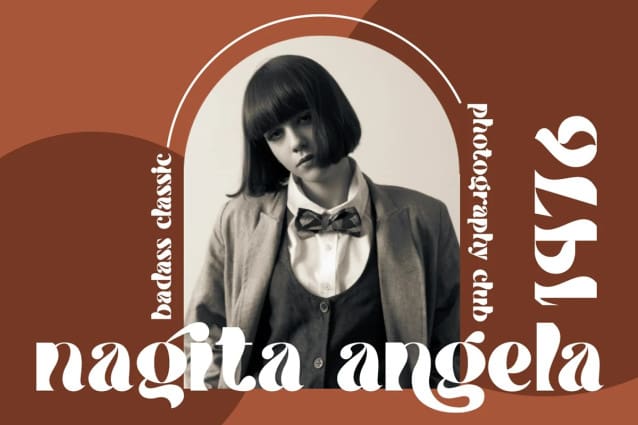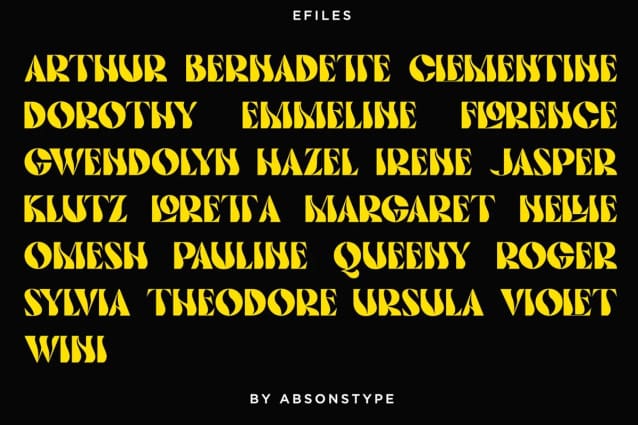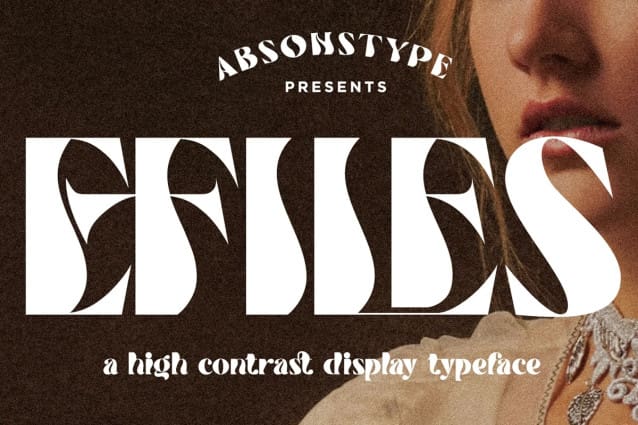
Efiles Display Font
Efiles Display Font a display font with high contrast view, classic & stylish masculine. It’s strong, classy and modern all wrapped into one, and surely can not be missed in your font collection.